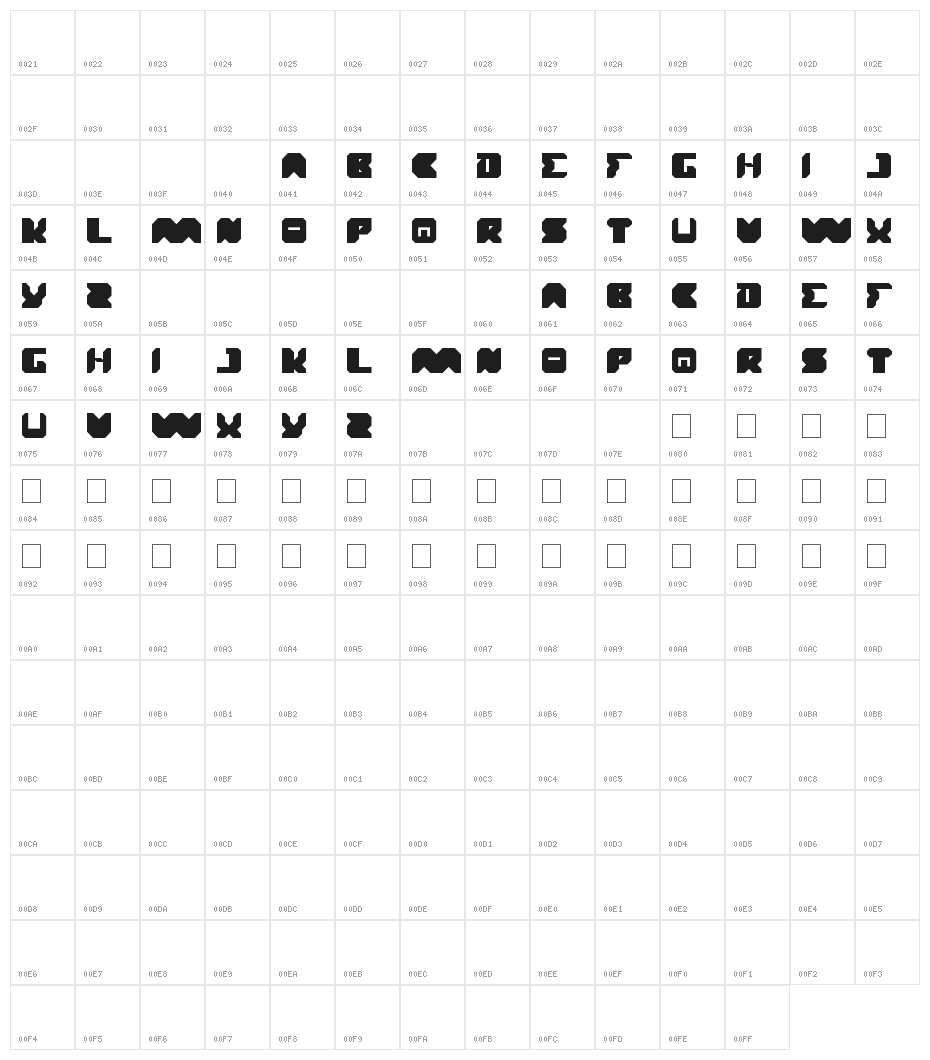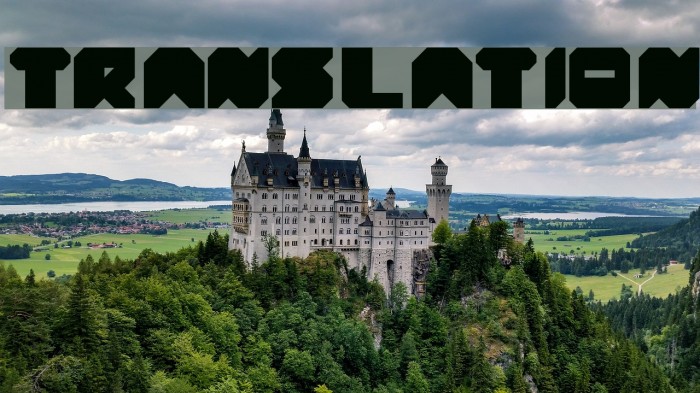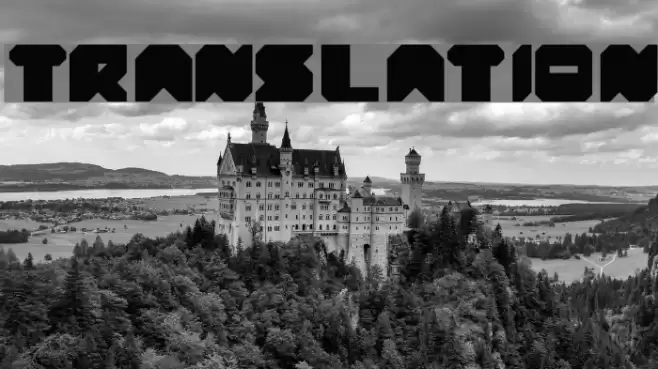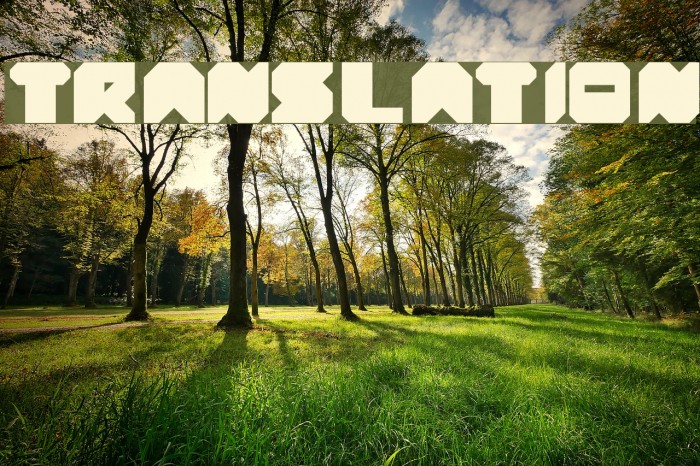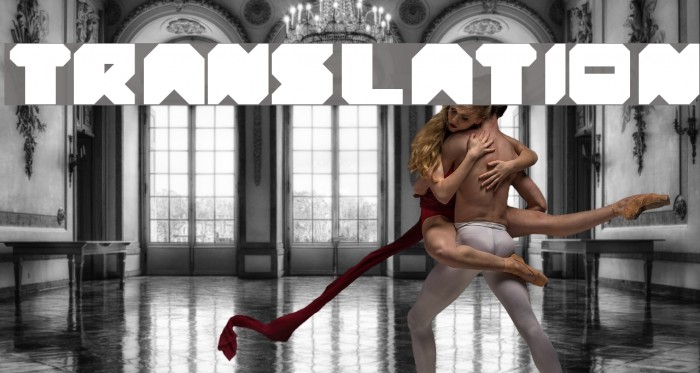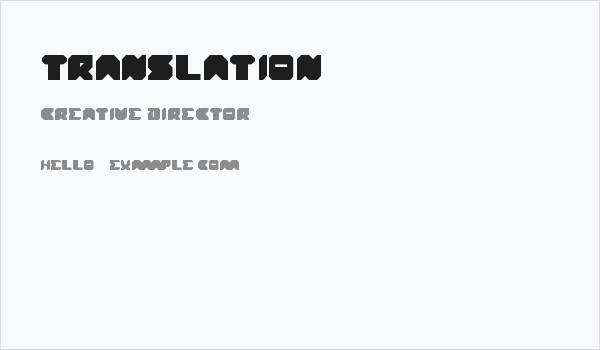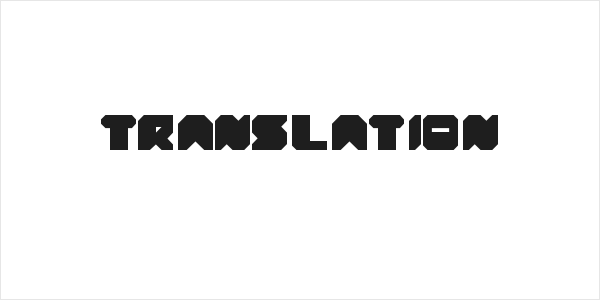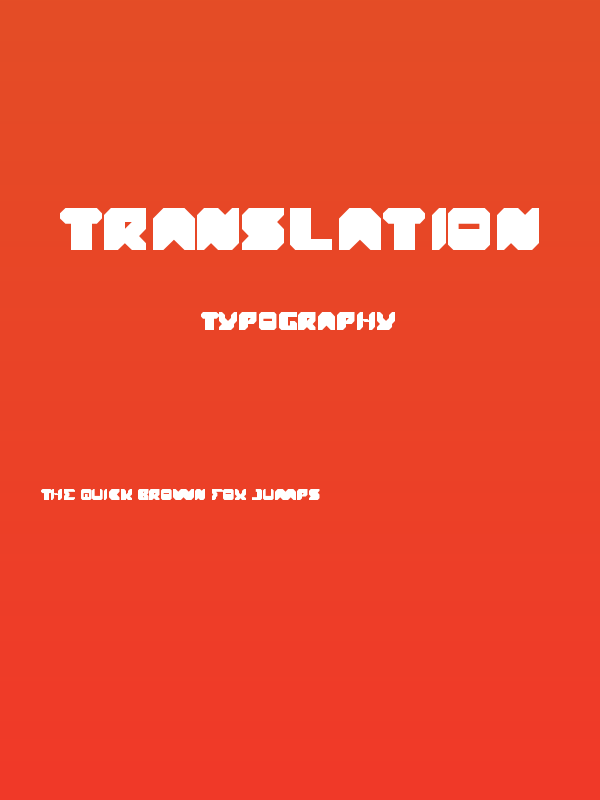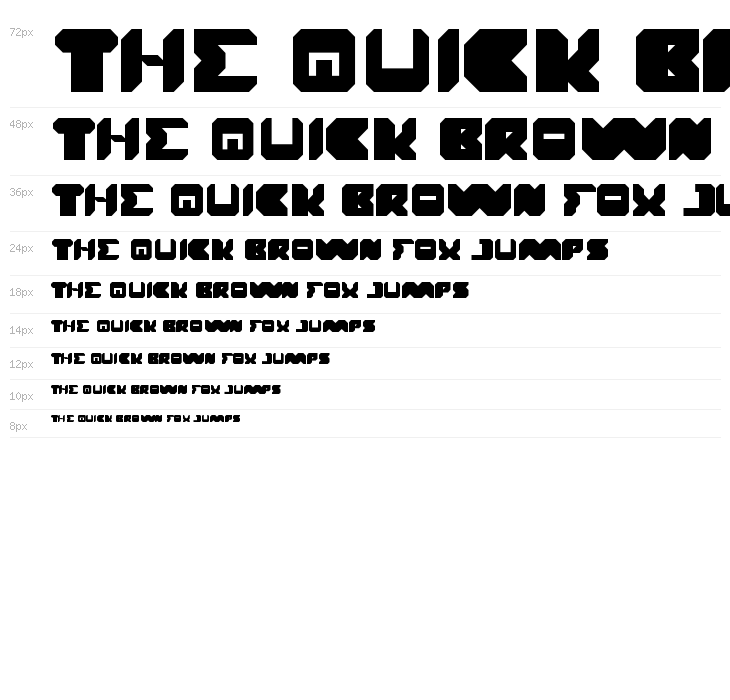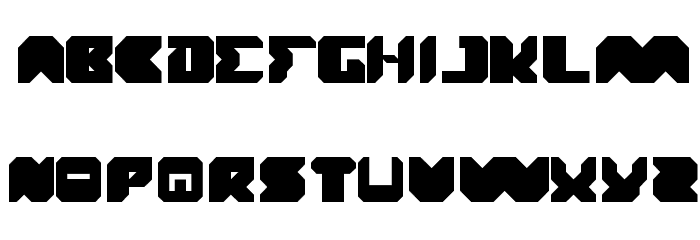
translation Font
translation Description
This font features a bold, geometric design with a futuristic and industrial feel. The characters are constructed with sharp angles and block-like shapes, giving them a strong and commanding presence. The uppercase letters are particularly striking, with each character appearing as if it has been carved from a solid block. The font's unique style is consistent across all characters, maintaining a cohesive look that is both modern and edgy. The absence of curves and the emphasis on straight lines and sharp corners contribute to its distinctive appearance. This font is ideal for projects that require a bold statement and a modern aesthetic.
| Proposed Projects | Ideal for branding, posters, video game graphics, and sci-fi themed projects. |